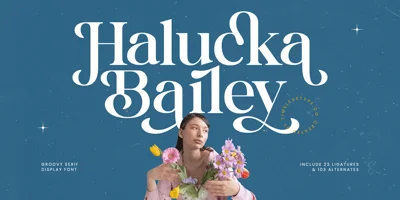
Halucka Bailey Font
Halucka Bailey Font is perfect for whimsical children's entertainment branding, quirky creative agency portfolios, playful restaurant menu designs, artistic storytelling projects, imaginative toy packaging, and delightfully eccentric marketing campaigns. Its charming character makes it ideal for children's book publishers, creative design studios, family entertainment venues, artisanal craft makers, and any application requiring distinctive typography that conveys creative whimsy, artistic personality, and the enchanting appeal of uniquely crafted storytelling experiences.
Halucka Bailey Font is exciting because it embodies creative individuality and artistic charm through uniquely crafted letterforms that celebrate the beauty of handmade creativity and personal artistic expression. Its distinctive proportions and whimsical details reflect the joy of creative freedom and the authentic personality that emerges from artisanal craftsmanship, making it perfect for brands seeking to convey genuine creativity and artistic authenticity. The font's charming character transforms communications into expressions of creative individuality.
Halucka Bailey Font family includes artistically-inspired weight variations typically featuring Light, Regular, Medium, and Bold options with whimsical styling that maintains creative authenticity. The family often incorporates artistic symbols, creative flourishes, and playful elements designed for imaginative applications, providing designers with comprehensive tools for creating authentic, creativity-focused typographic compositions.
When selecting whimsical creative typography solutions, Halucka Bailey Font represents an exceptional choice for artistic and imaginative projects. This distinctive typeface brings instant creative authenticity to any design, making it invaluable for artists, creative agencies, and children's brands celebrating artistic expression. Whether you're developing creative studio branding, creating children's entertainment materials, or designing whimsical marketing campaigns, Halucka Bailey Font provides the artistic charm and creative authenticity essential for expressing unique personality in today's creativity-focused artistic marketplace.